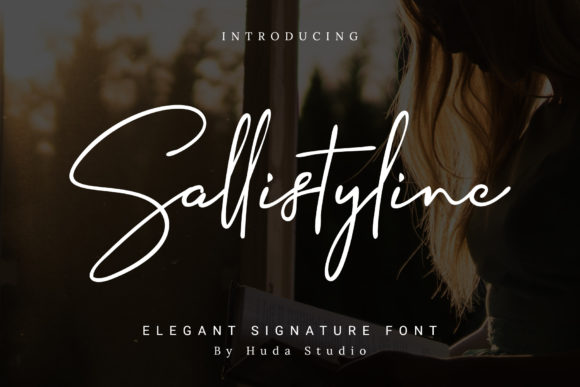
Sallistyline Font
Grab the Sallistyline Script and bring your creative vision to life! Its graceful curves and stylish flow will elevate your designs. Whether you're crafting a delectable food brand logo, designing a captivating movie title, or penning a heartfelt wedding invitation, this font will make your words dance off the page. Its multi-purpose versatility allows you to adorn your book covers, enhance your photos, and create stunning quotes that will leave a lasting impression. Unleash your creativity and let Sallistyline Script weave its magic into your next masterpiece!